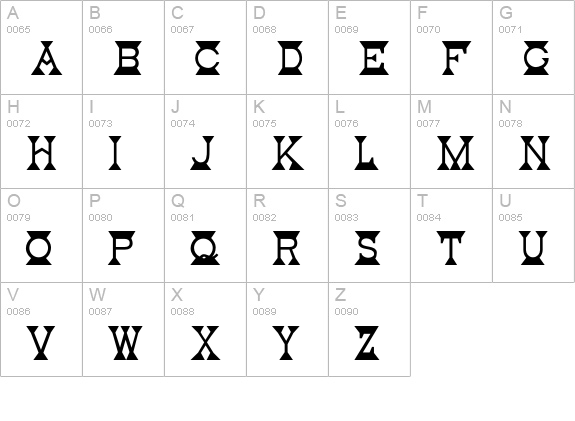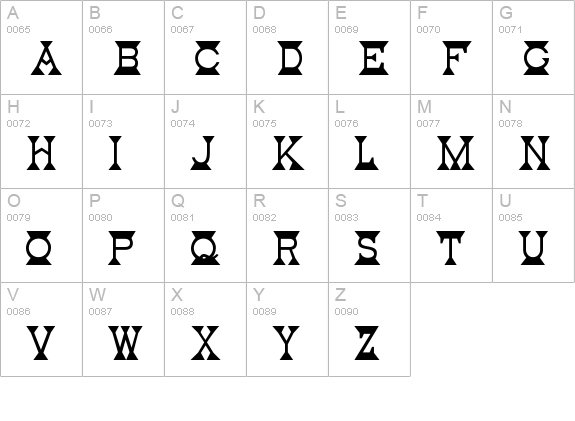
Haster Font Details
Introducing Haster, a captivating and versatile font that effortlessly combines elegance with a touch of modernity. This font is designed to make a lasting impression and elevate any creative project to new heights. With its clean lines and balanced proportions, Haster exudes a sense of sophistication that is perfect for a wide range of applications. Whether you're designing a logo, crafting a website, creating social media graphics, or working on any other creative endeavor, Haster will add a touch of refinement and professionalism to your work. What sets Haster apart is not only its impeccable design but also its availability. This remarkable font is freely available for download at FontsMarket.com, making it accessible to designers and enthusiasts alike. Its open and unrestricted nature empowers users to fully unleash their creativity and explore endless possibilities without any limitations. Haster's extensive character set includes uppercase and lowercase letters, numerals, punctuation marks, as well as multilingual support, ensuring that you can use this font seamlessly across various languages and communication platforms. Its versatility knows no bounds, allowing you to effortlessly convey your message with utmost clarity and style. The attention to detail in Haster is truly remarkable. From its precise letterforms to its smooth curves, every element has been meticulously crafted to create a harmonious and visually pleasing aesthetic. This attention to detail ensures that your typographic compositions will be visually stunning and captivating, leaving a lasting impression on your audience. In conclusion, Haster is not just a font, but a powerful tool that will elevate your design projects to new levels of excellence. With its timeless elegance, versatility, and the fact that it is freely available to download at FontsMarket.com, Haster is a must-have for any designer looking to make a bold statement and leave a lasting impression. So why wait? Embrace the beauty of Haster and let your creativity soar to new heights.